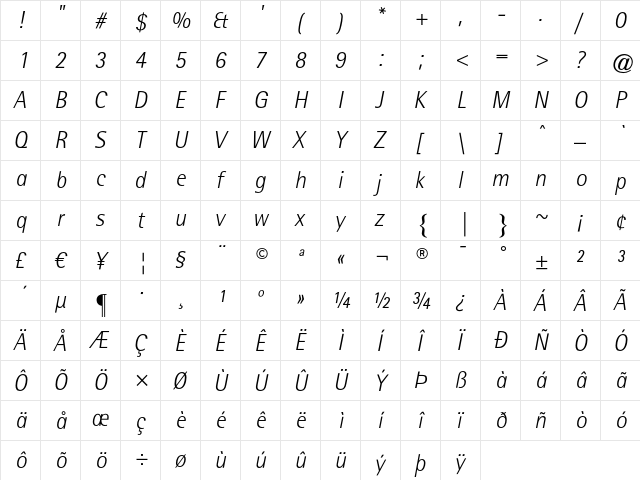
AgfaRotisSemisansLight Italic Font Preview
AgfaRotisSemisansLight Italic
Design Context for AgfaRotisSemisansLight Typeface
AgfaRotisSemisansLight is a composed and adaptable typeface that performs quietly and consistently across a wide range of design contexts. The dynamic lean of this cut emphasises speed and emphasis in any layout. Its slender proportions lend an understated elegance to any composition.
Pro Tip: Use AgfaRotisSemisansLight for emphasis, pull quotes, and subheadings where its slanted energy can add rhythm to the layout.